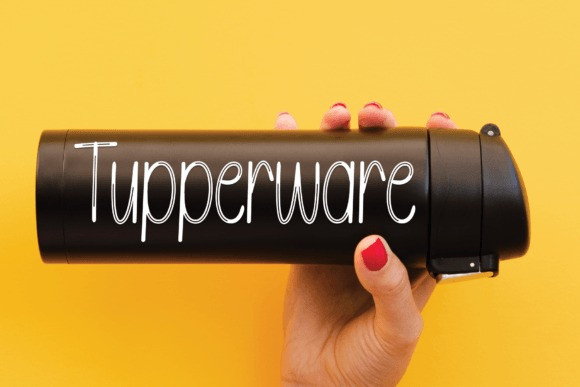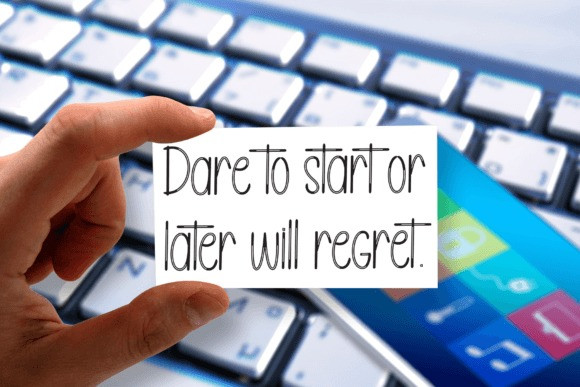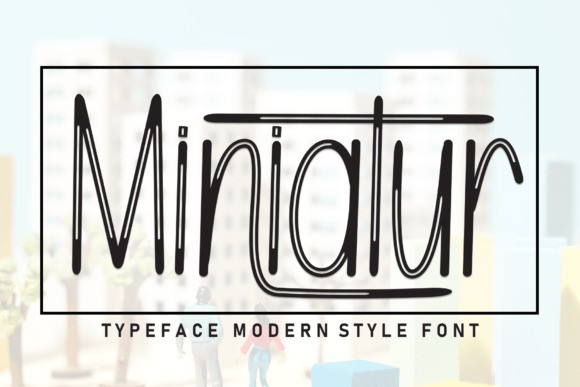
Miniatur Playful Font
Miniatur Playful Font is a delightful and whimsical typeface that captures the essence of a tiny world. Its playful curves and intricate details bring a sense of charm and enchantment to any design. Perfect for children’s books, greeting cards, and packaging, Miniatur Font adds a touch of magic to your creative projects, making them truly unforgettable.